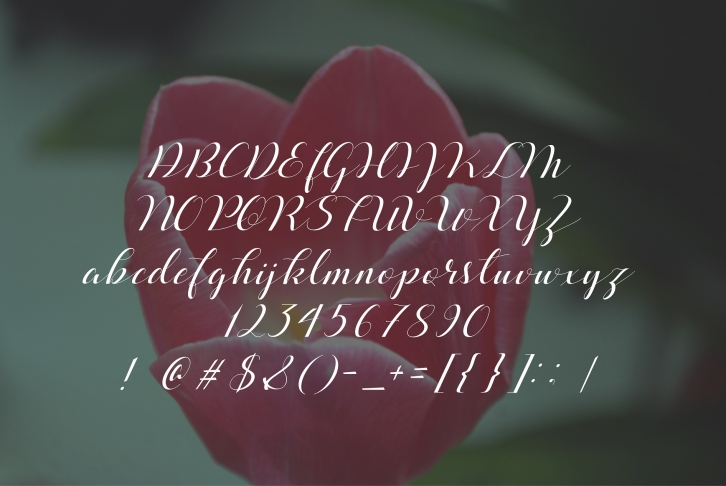
Beloved is a script font with a nice, fresh & girly vibe.
It’s perfect for logo projects, creating catchy headings, apparel design, gift cards, invitations, etc.